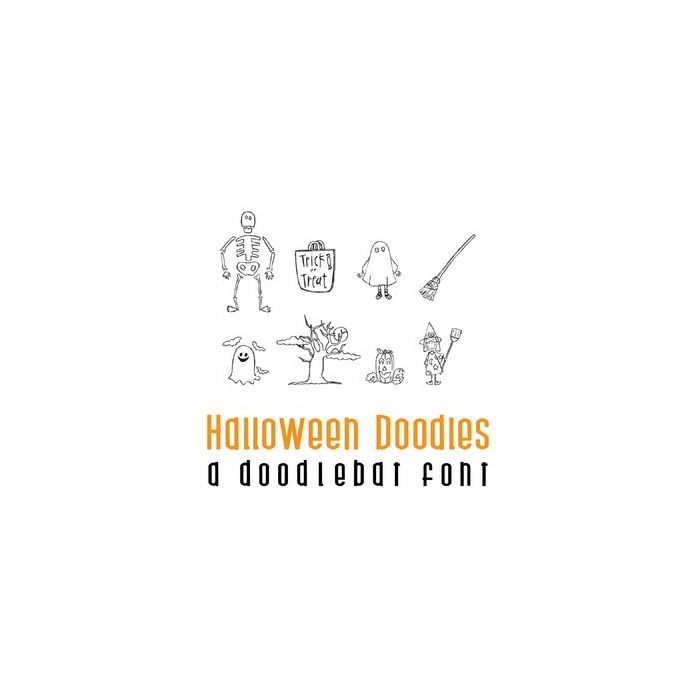
This fun doodlebat font features 36 Halloween doodles. Perfect for cards, gifts, decor, crafts, scrap book pages, planner stickers and more! Images are A-Z and 0-9